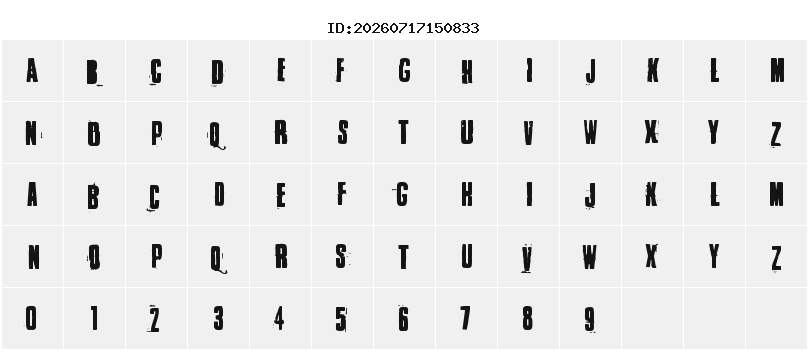
Blacklist Preview
• Font Name: Blacklist
• Full Font Name: Blacklist
About Blacklist.ttf
Blacklist.ttf is a modern, elegant sans-serif font designed for ultimate readability and visual harmony. Perfect for branding, headlines, web design, and print materials.